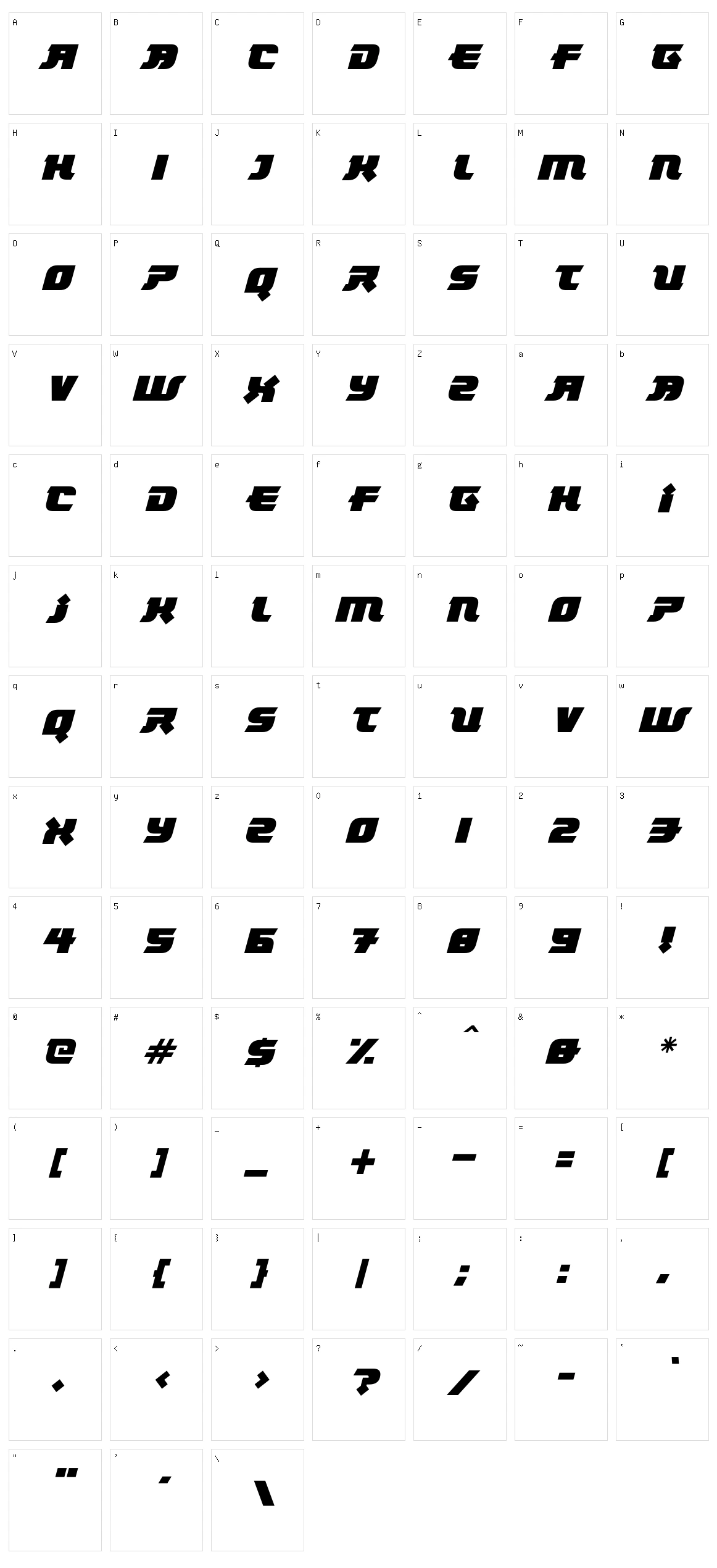
The free font Tokyo Knights is carefully designed by Hawtpixel, showcasing a thoughtful balance of creativity and usability and falls under the Asian font style. When you download the ZIP file, it contains only 49.17 KB of font files, making it lightweight and quick to download. Please review the license details below to understand permitted usage and distribution rights. If license information is not available, we recommend using this font for personal projects only or contacting the author directly for commercial usage permissions.